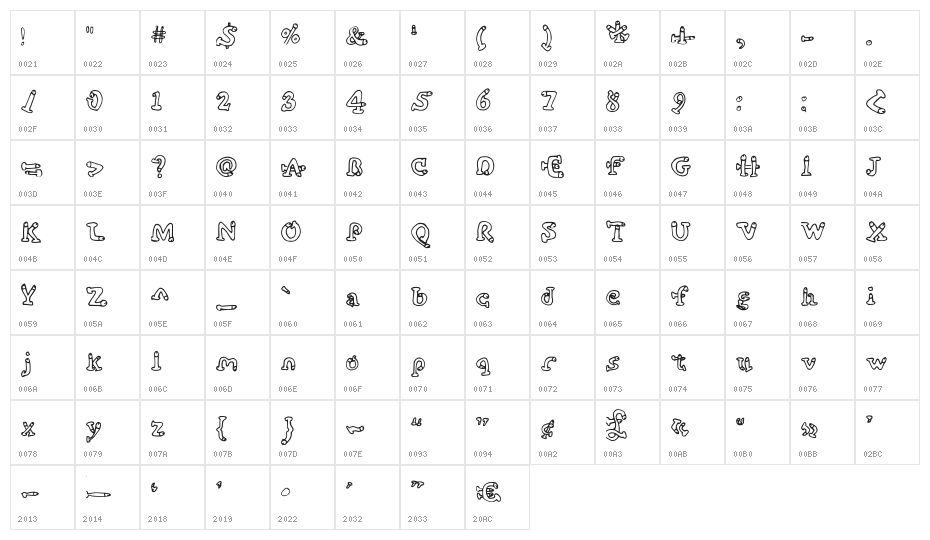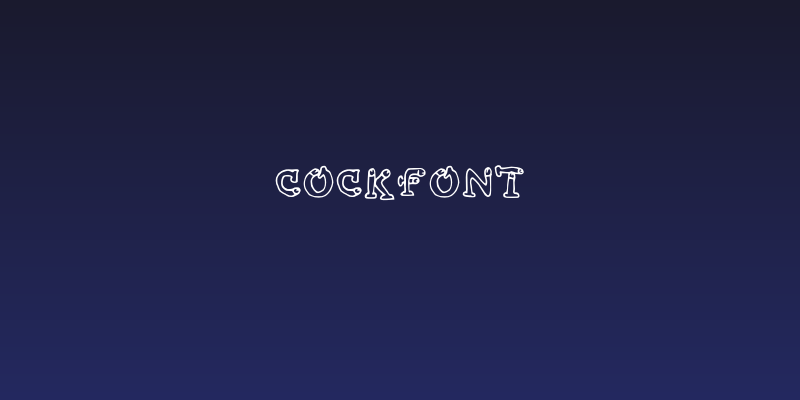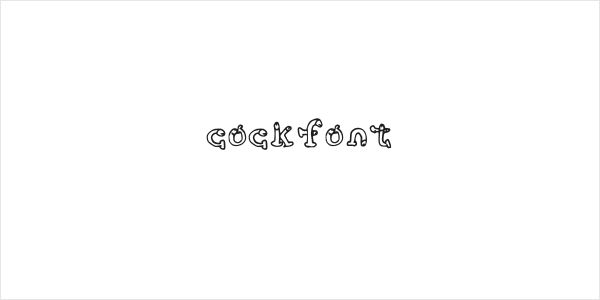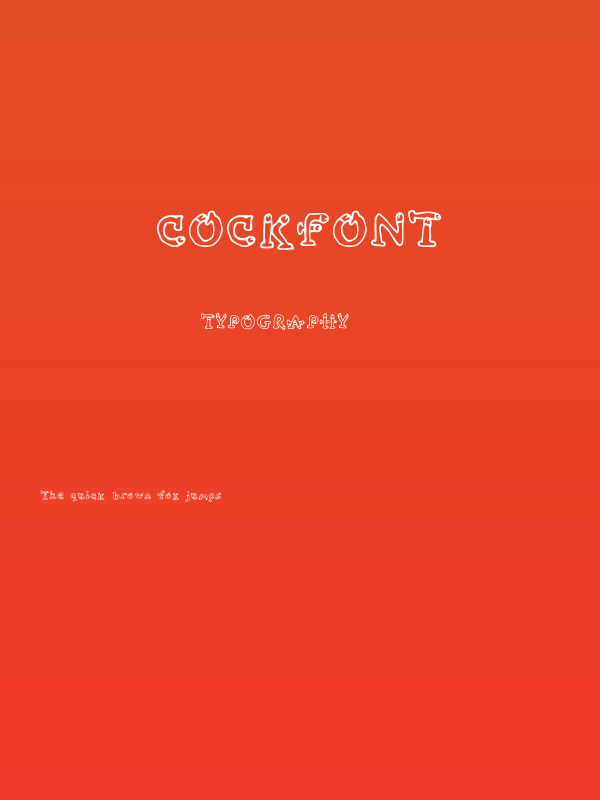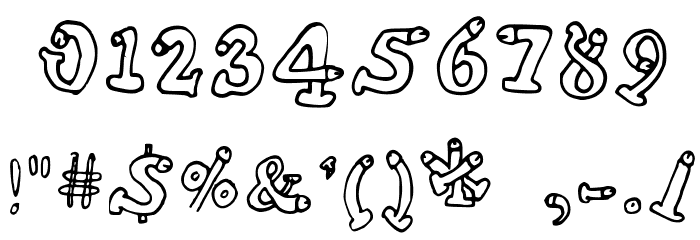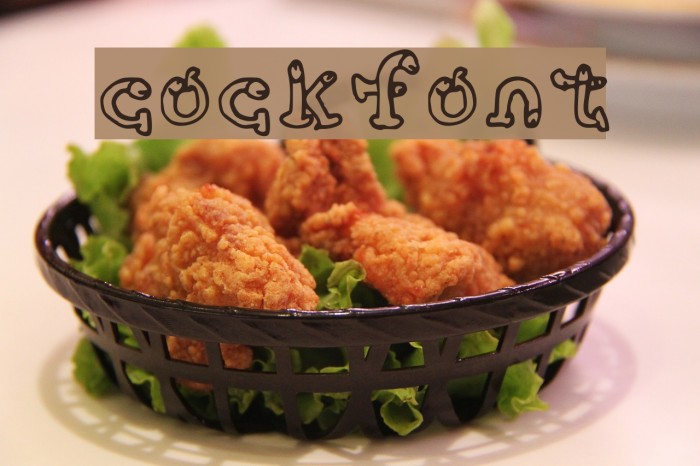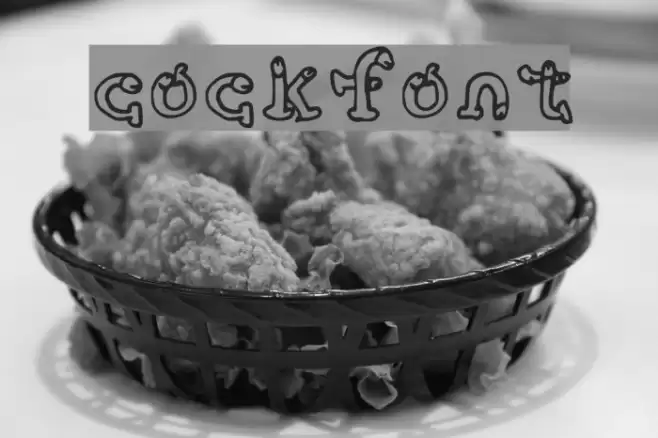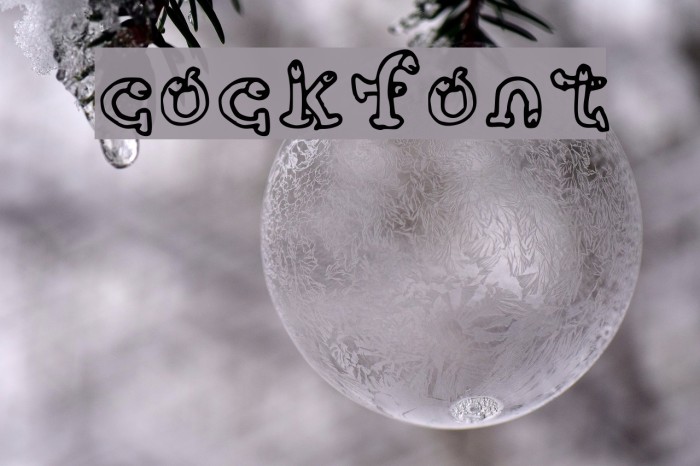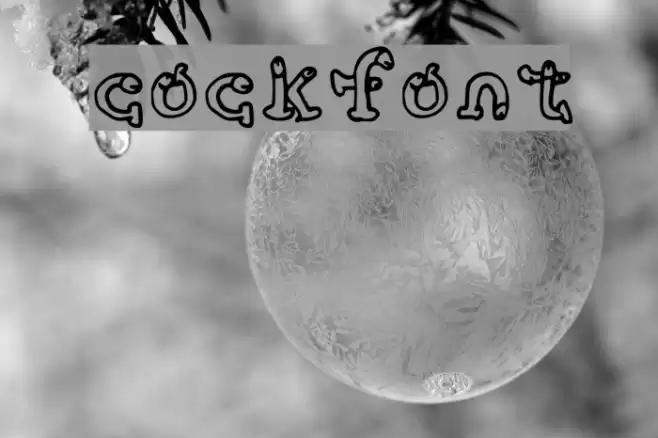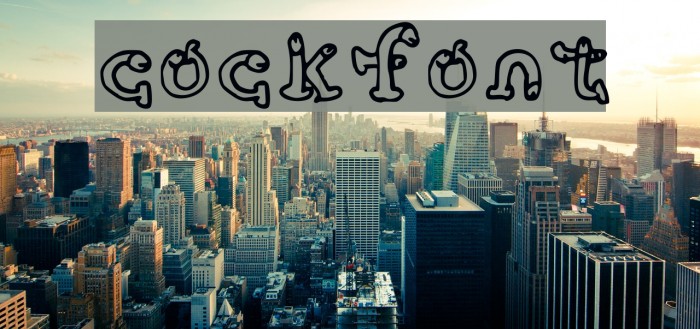
cockfont Font
cockfont Description
This font features a playful and whimsical design, with each character incorporating elements that resemble cartoonish or abstract shapes. The letters are bold and have a unique, hand-drawn quality, giving them a lively and dynamic appearance. The strokes are thick and consistent, with rounded edges that add to the font's friendly and approachable feel. The characters are well-spaced, ensuring readability while maintaining their quirky style. This font stands out with its creative and artistic flair, making it suitable for projects that require a touch of fun and originality.
| Overall Style | Playful, Artistic |